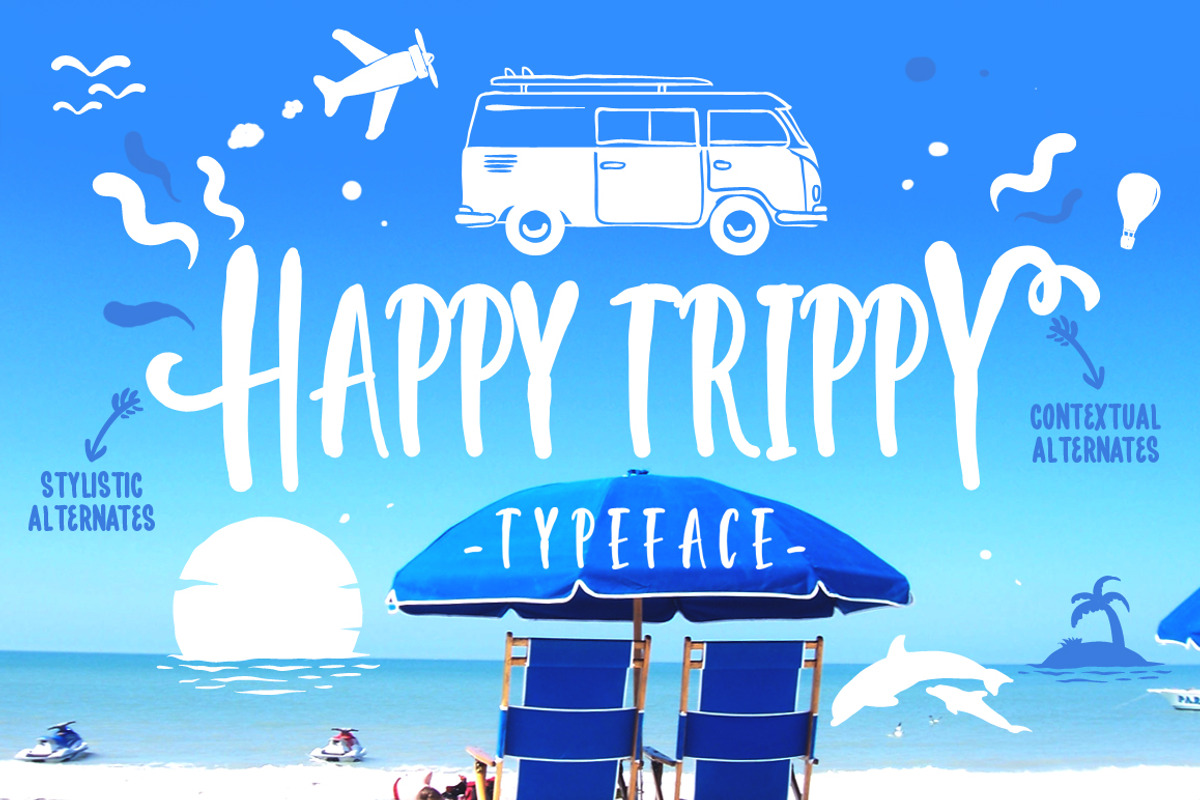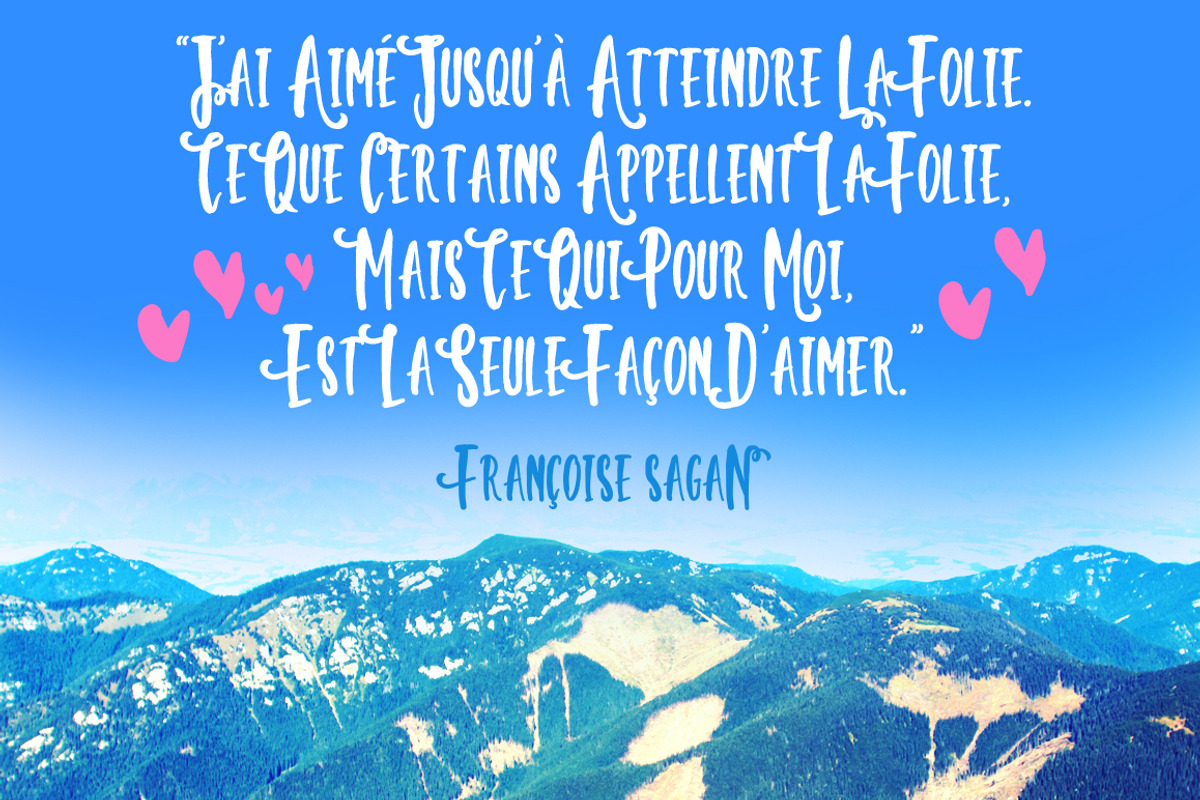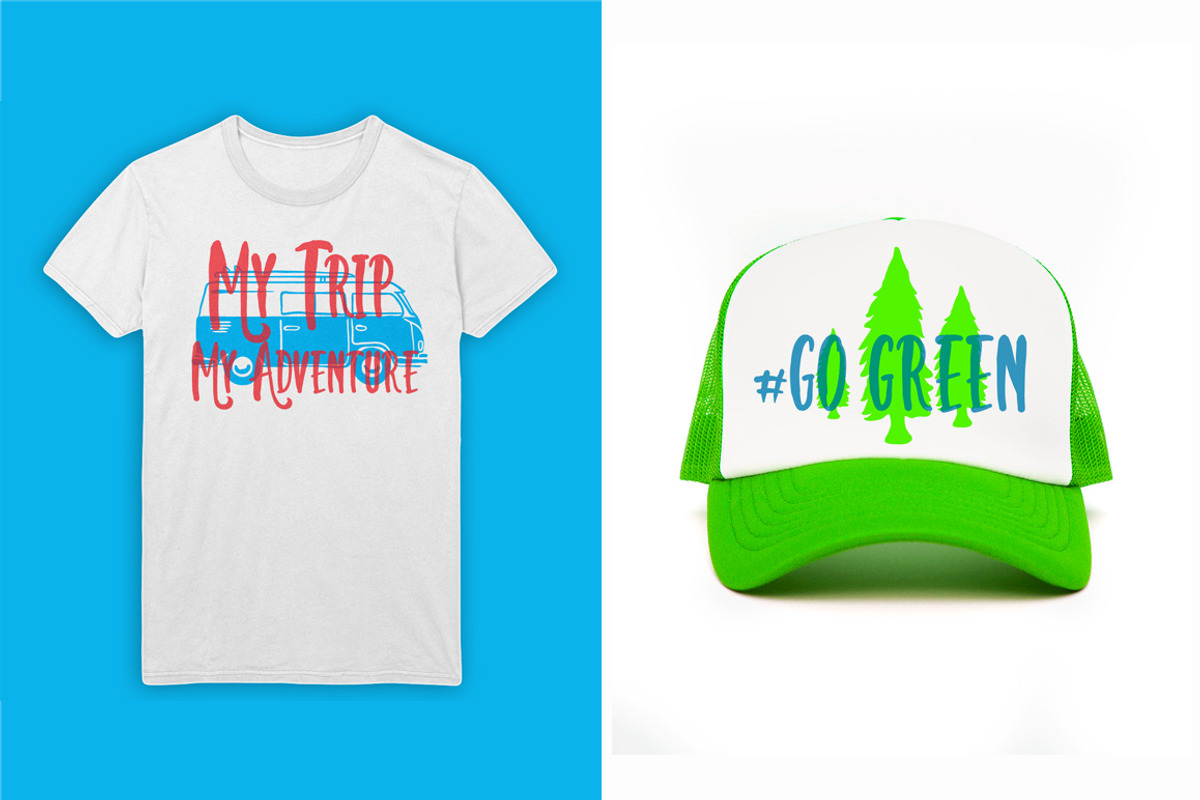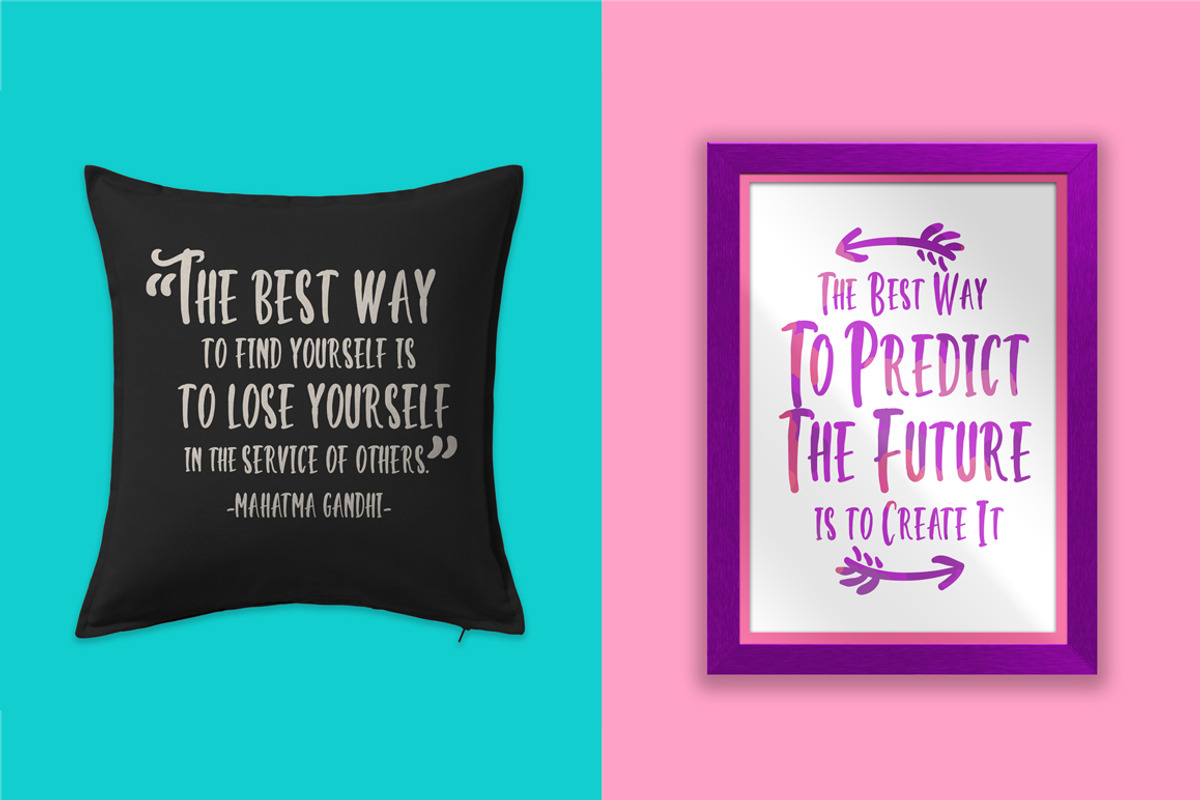
Sale ! 50% off Happy Trippy Typeface by fopifopi is a font selected for branding, posters, packaging, typography.
- Contextual Alternates
- Happy Trippy Regular
- Happy Trippy Alternates Regular
- Happy Trippy Alternates Caps Regular
Sale ! 50% off Happy Trippy Typeface by fopifopi fits naturally into Branding, posters, packaging, typography.